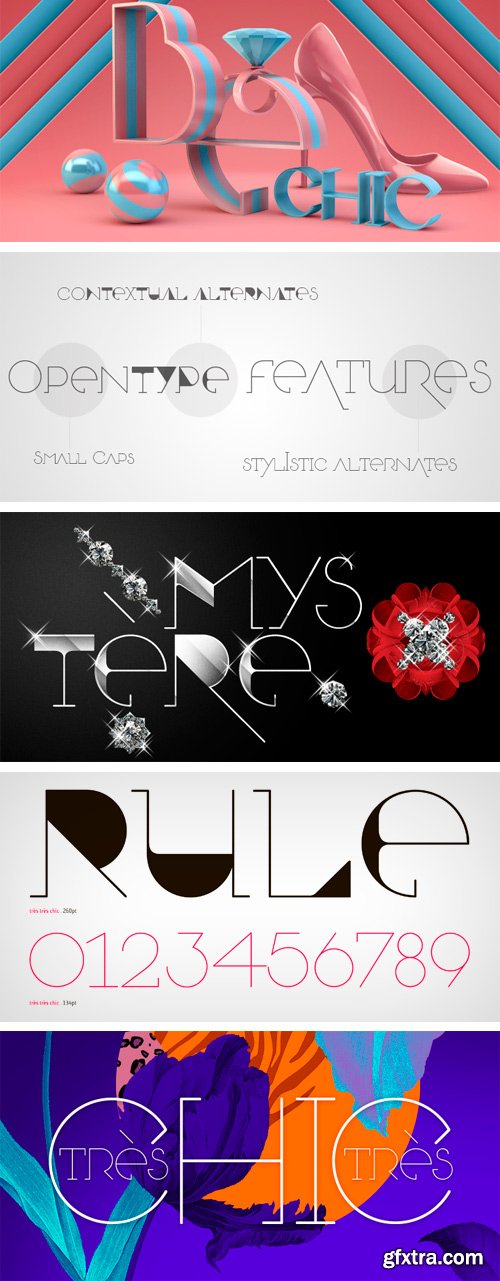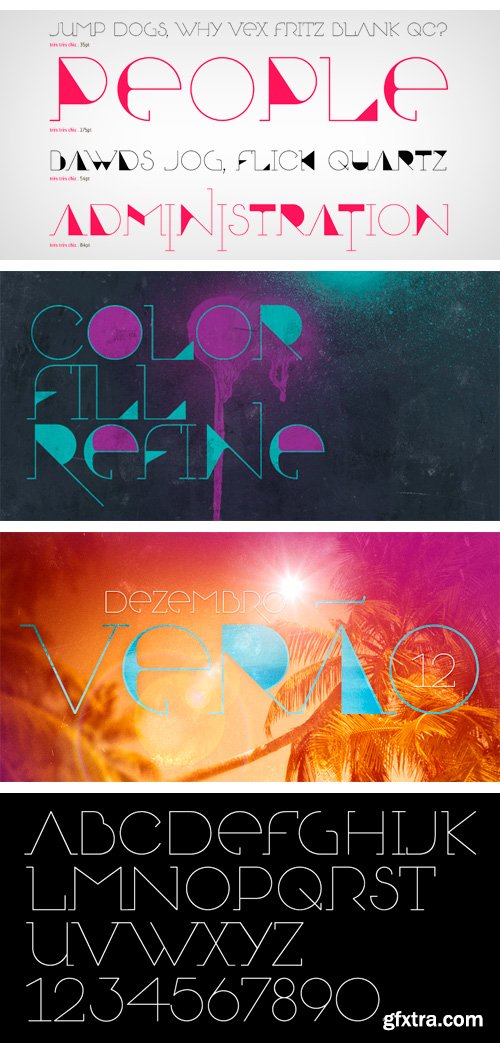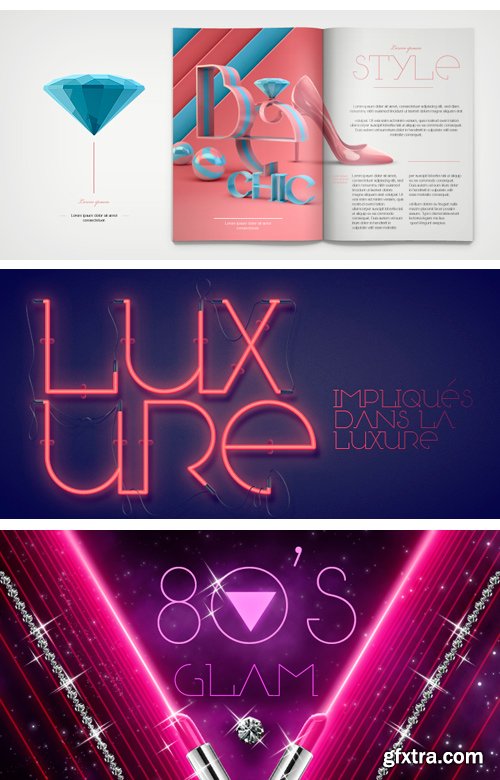
Tres Tres Chic Font - Primary Geometric Forms $39
- First partnership between Firmorama.com & dooType studios, Très Très Chic is a display font, developed to be versatile and illustrative, with strong features that provide personality to the drawing. The characters were built based in primary geometric forms and the gentle delicate lines, in their main purpose, make this font very appropriate to the feminine universe. On the other hand, this font has its form filled with black, that could be applied evenly for a composition more dynamic and amazing, with variation of shapes and weight.